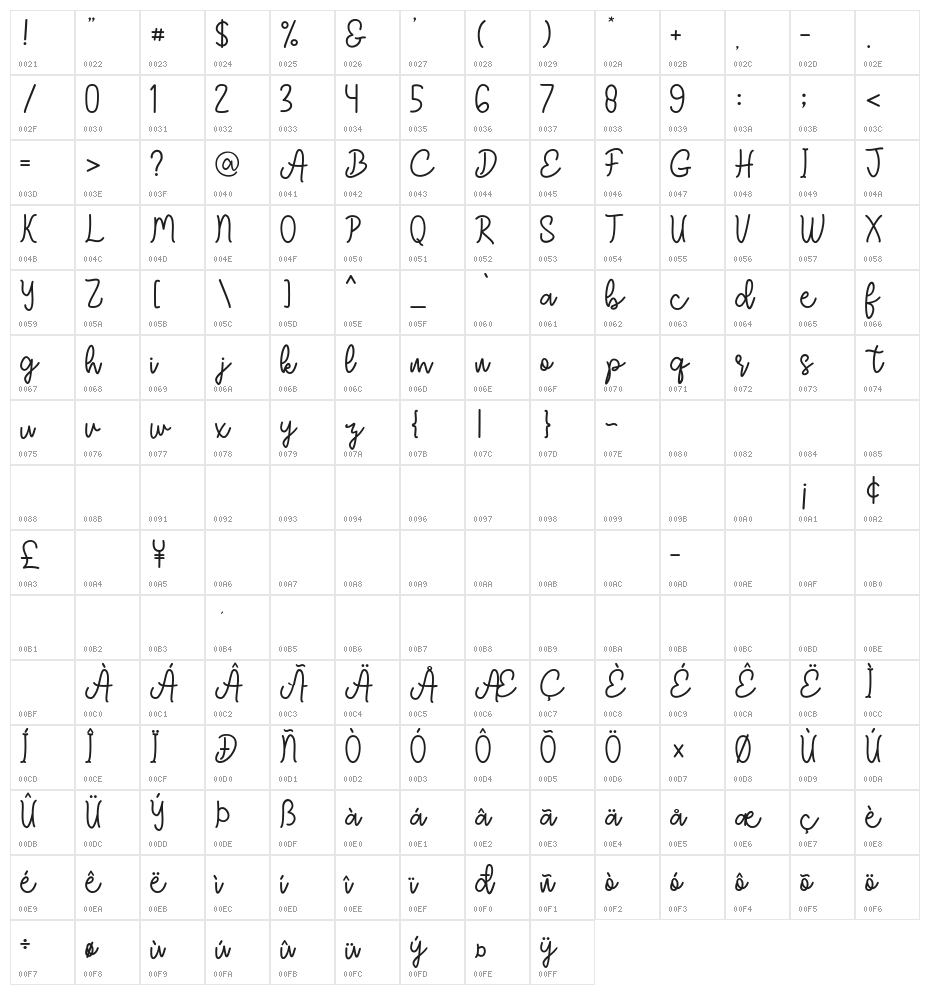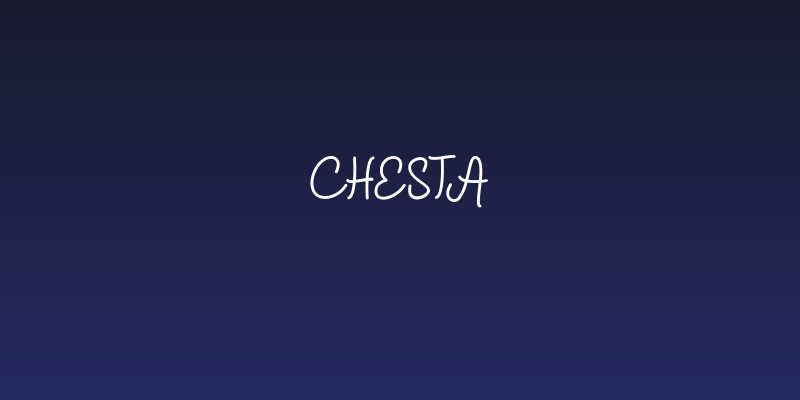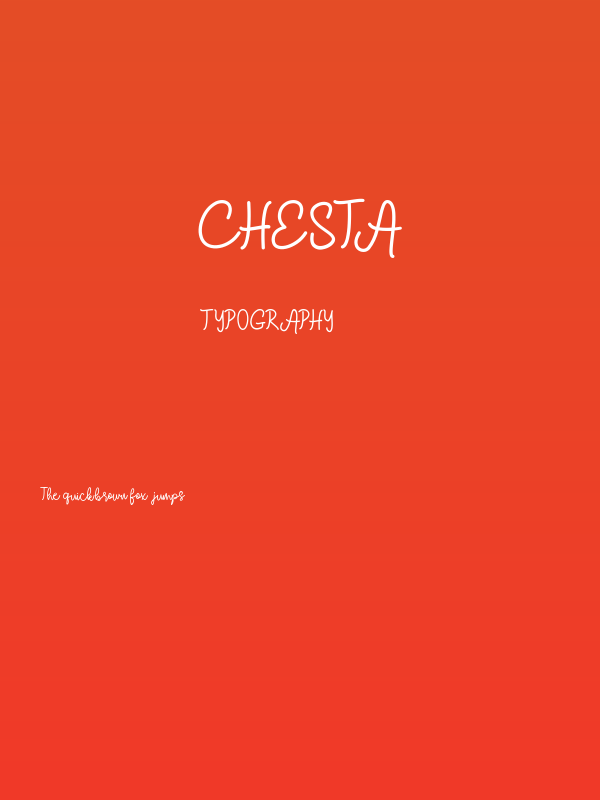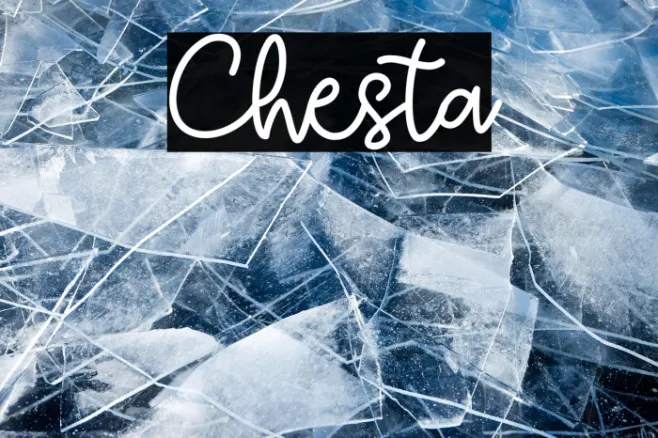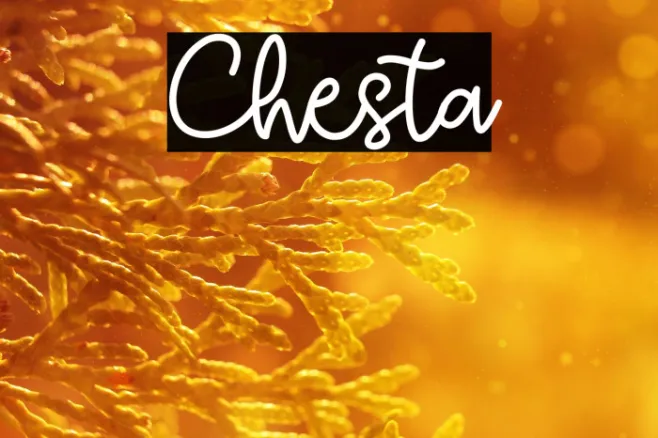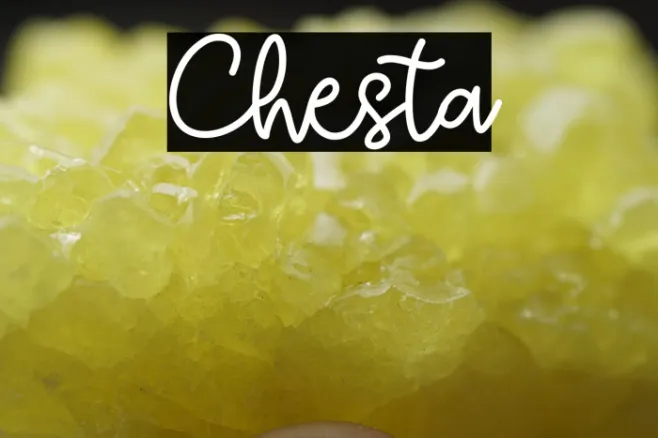
Chesta Font
Chesta Description
This font features a playful and casual script style, characterized by its smooth, flowing lines and rounded edges. The letters are interconnected, giving it a handwritten appearance that is both approachable and friendly. The uppercase letters maintain a consistent height, while the lowercase letters exhibit a slight variation in size, adding to the font's dynamic nature. The numerals are clear and easy to read, matching the overall style of the alphabet. Special characters are included, maintaining the same whimsical and informal aesthetic. This font is ideal for projects that require a personal touch, such as invitations, greeting cards, or branding for creative businesses.
| Proposed Projects | Ideal for invitations, greeting cards, and creative branding projects. |